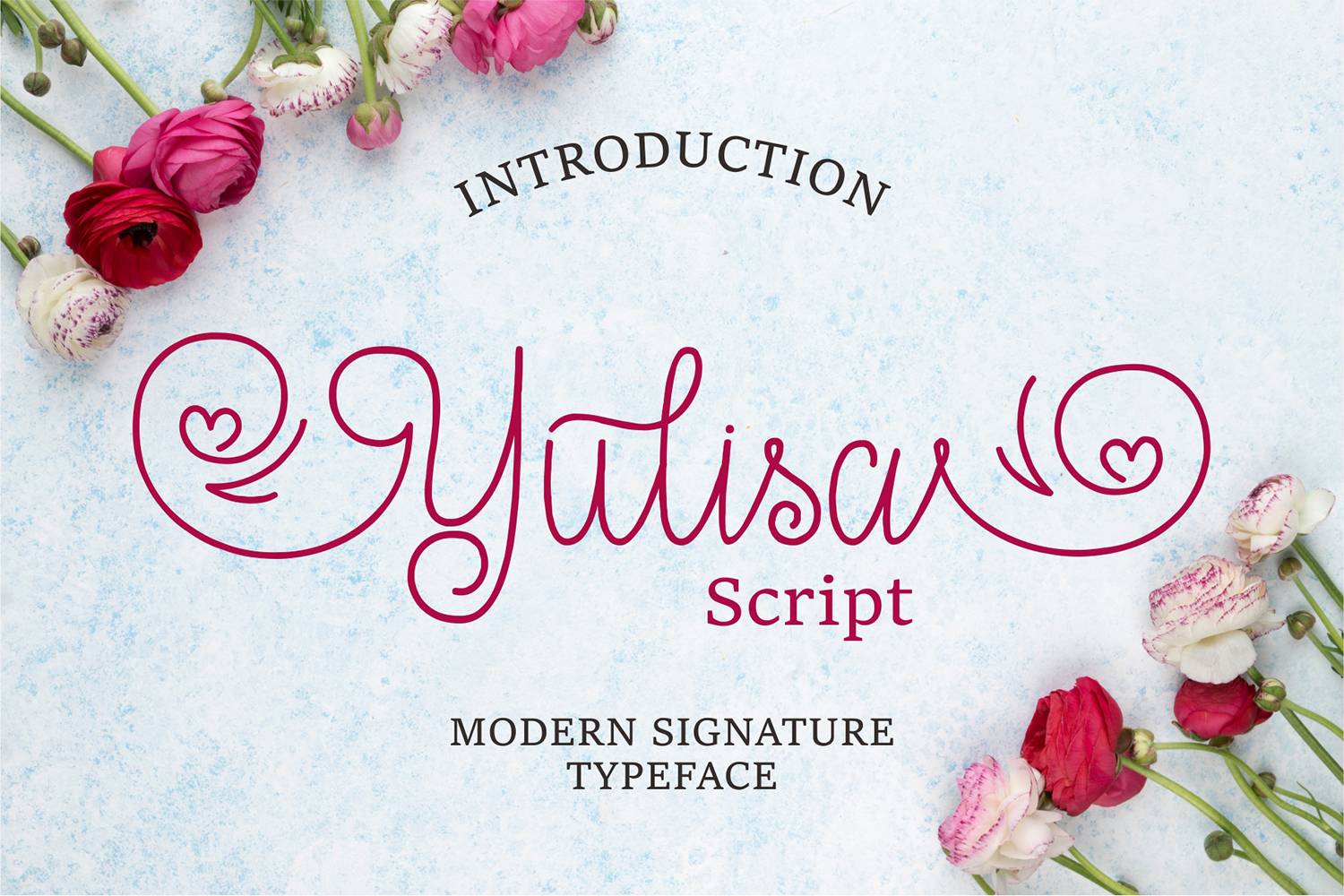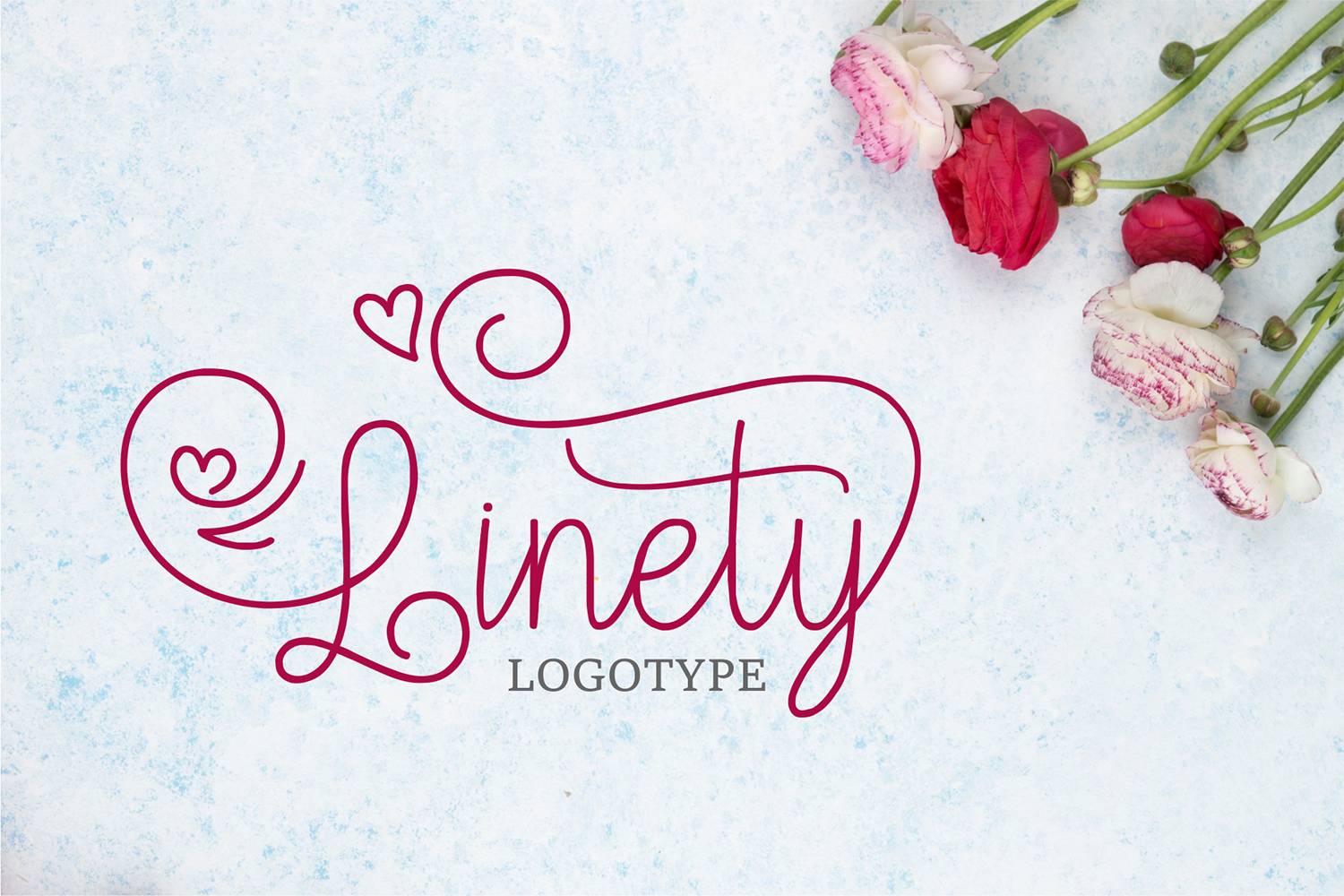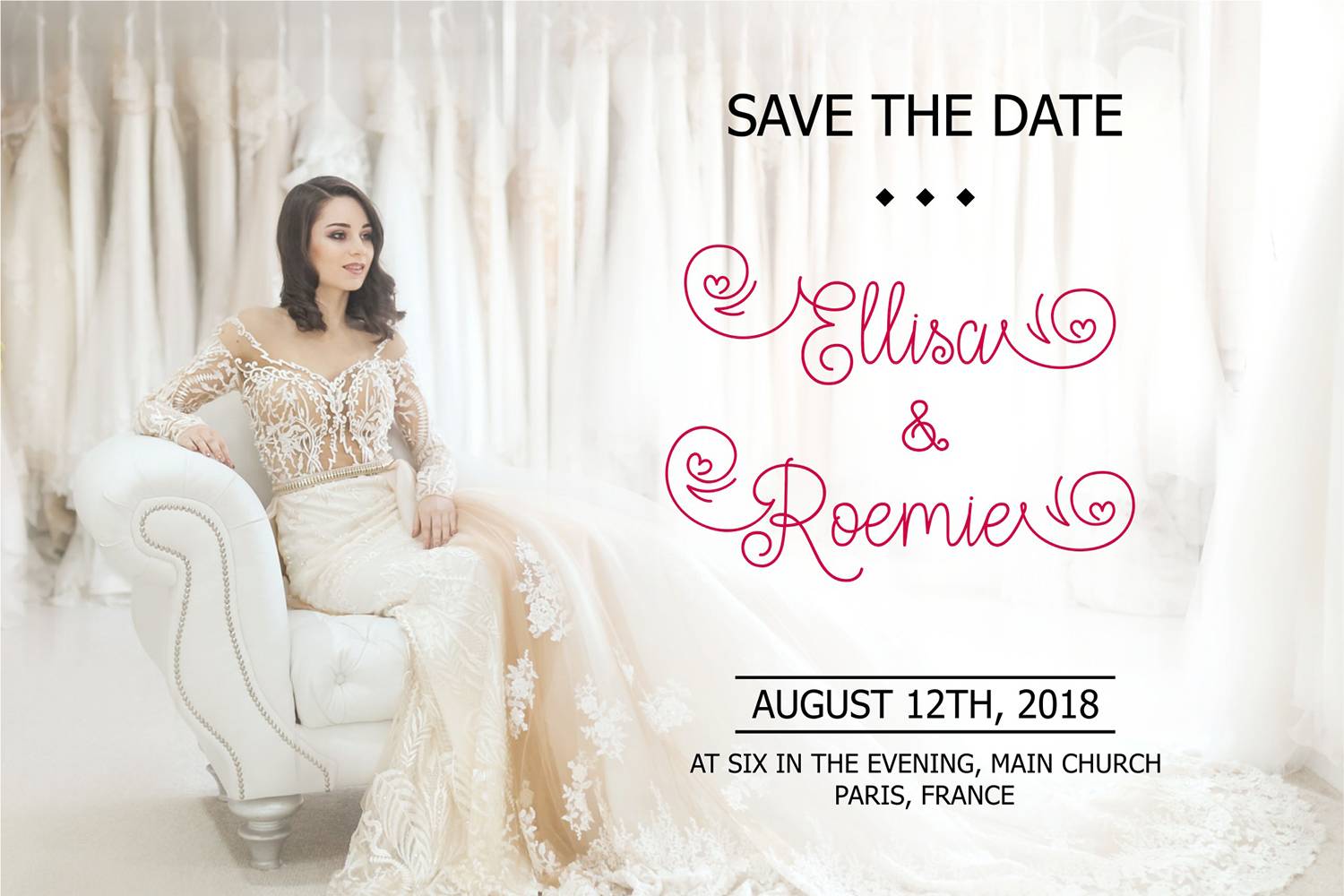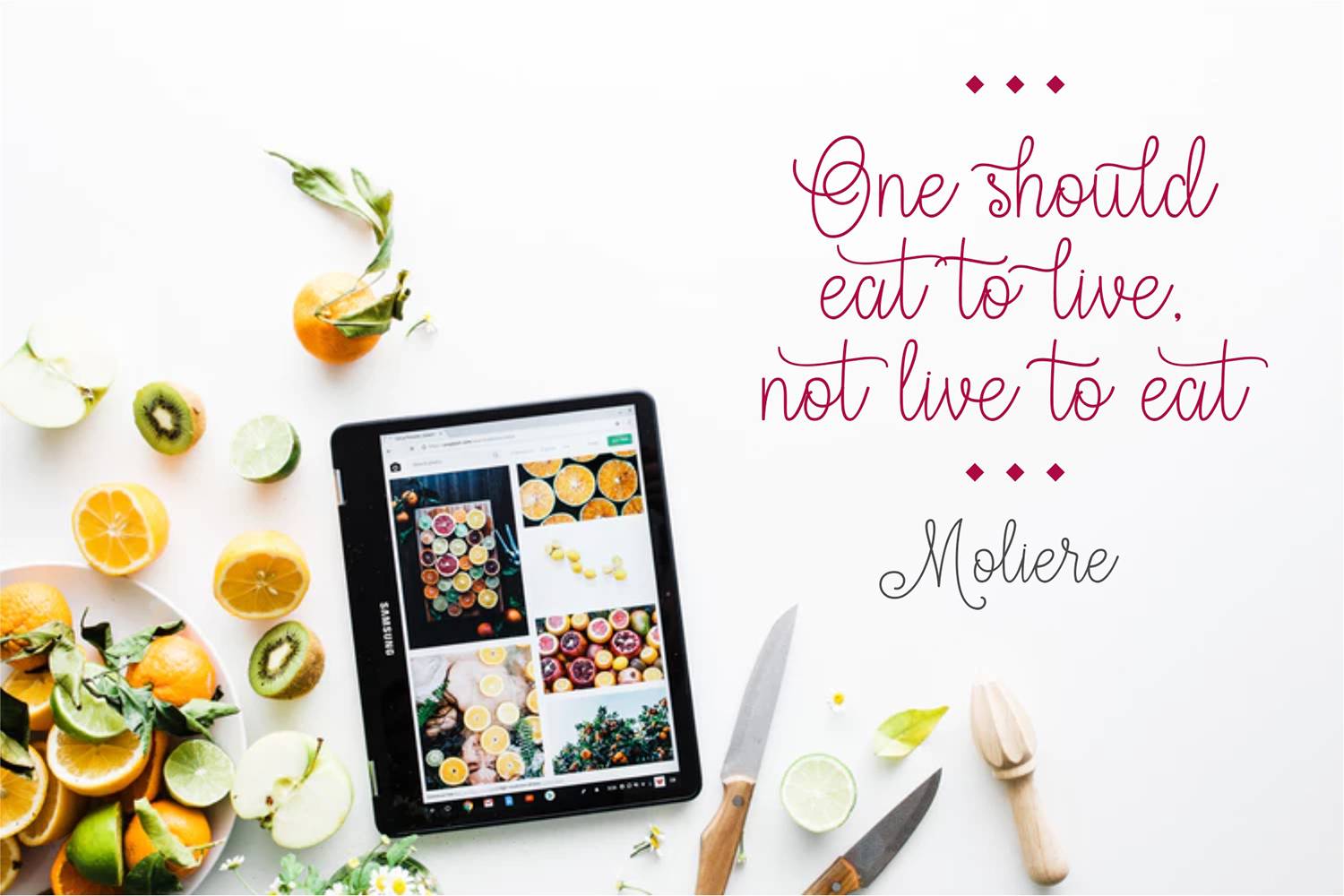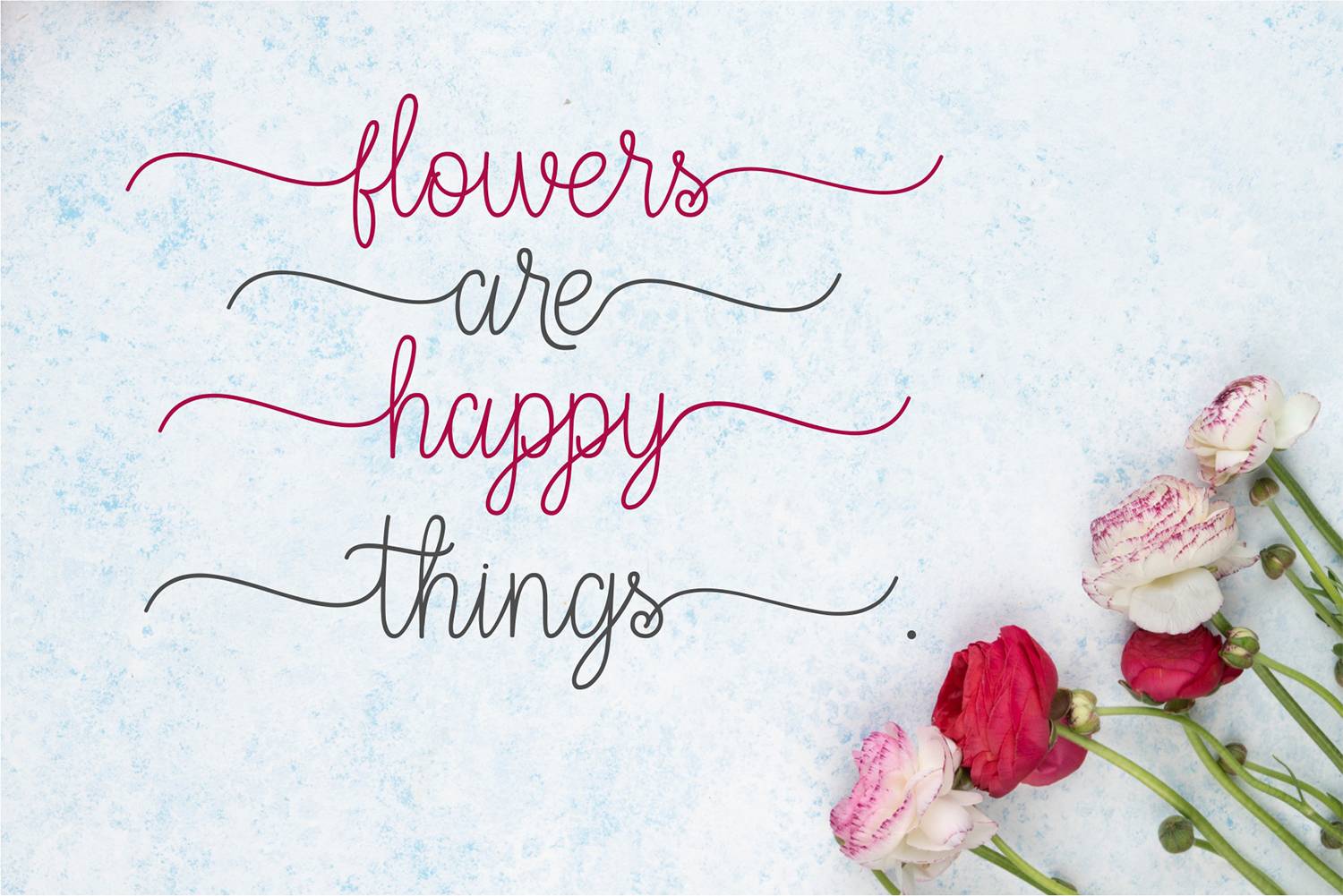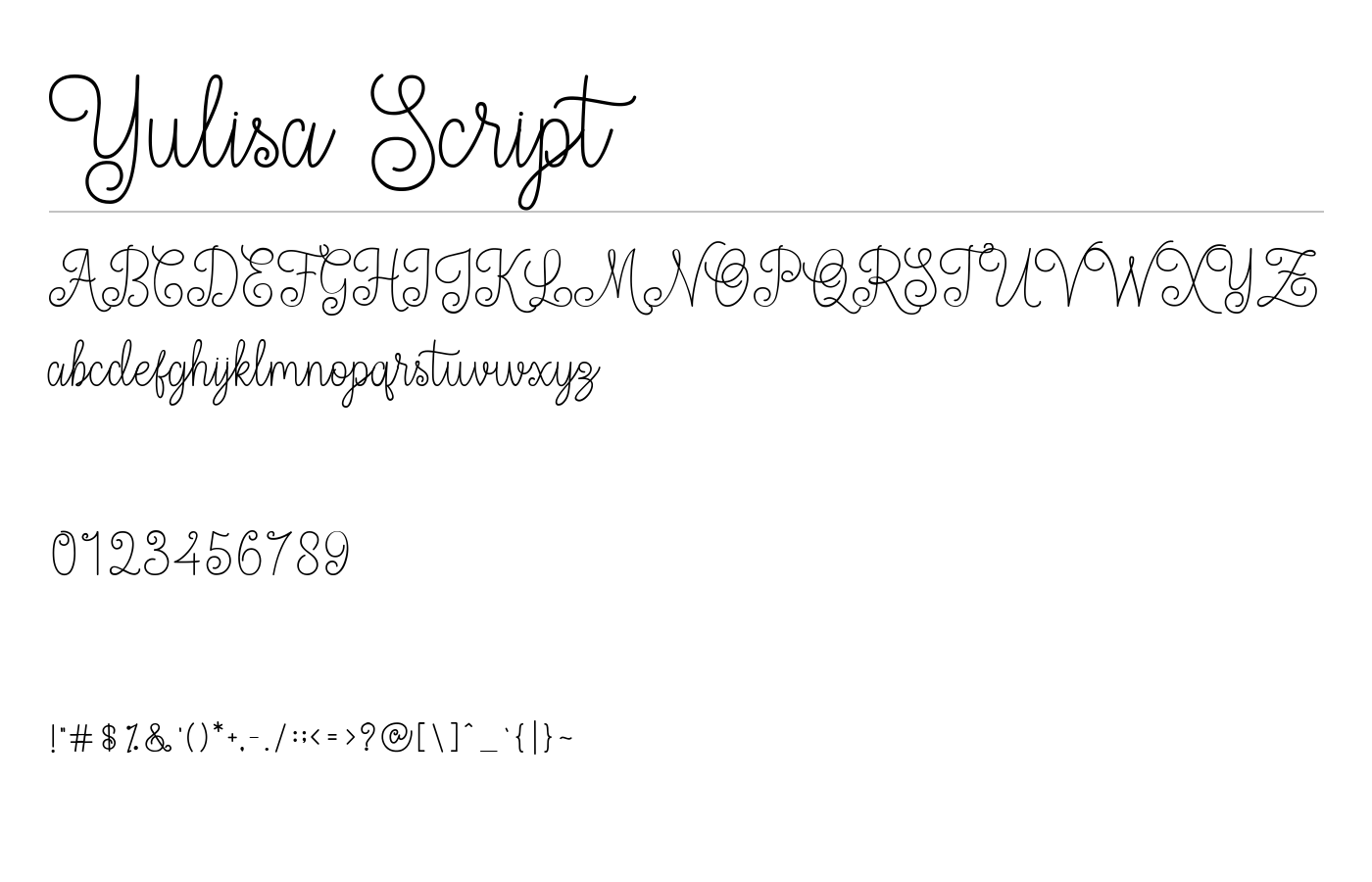
Yulisa Script is a delicate and elegant handwritten font characterized by thin, flowing lines and intricate swirls, especially in its uppercase letters. Its light weight and narrow width give it a graceful and airy feel, making it perfect for projects that require a feminine, romantic touch such as wedding invitations, branding for beauty products, or elegant logos. This font works best in display settings where its ornamental style can shine without losing readability.
Yulisa Script Font
About Yulisa Script Font
| Font family | Yulisa Script Font |
| Release date | 2018-05-06 |
| Designer | Rizaldi Wandani |